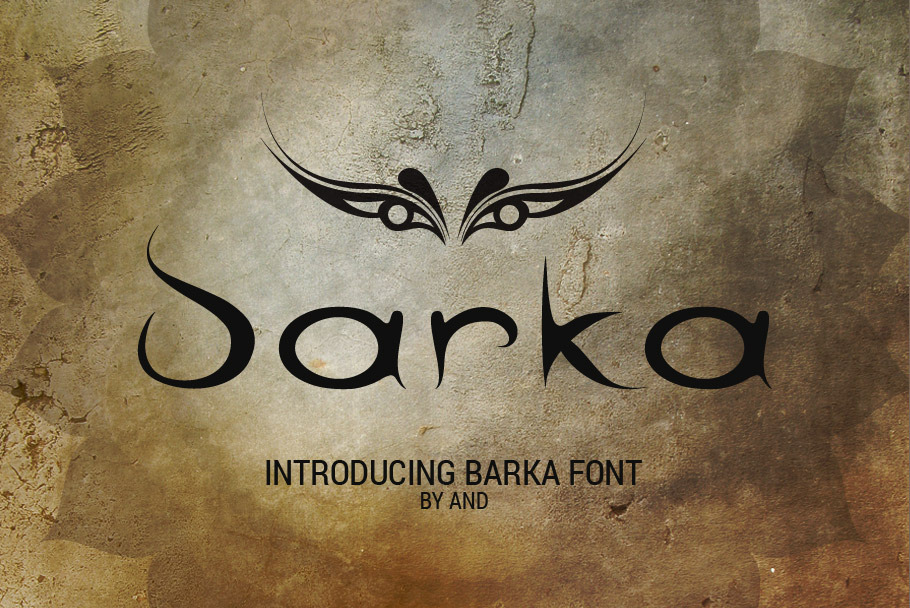
Barka font
Barka is an unusual and creatively crafted handwritten font, both curly and bubbly. Barka font will help you to create a unique and stylish signature look for your work. It's good for brand identity... Plus get 5 free vector symbols in AI, PDF, EPS, PSD formats.